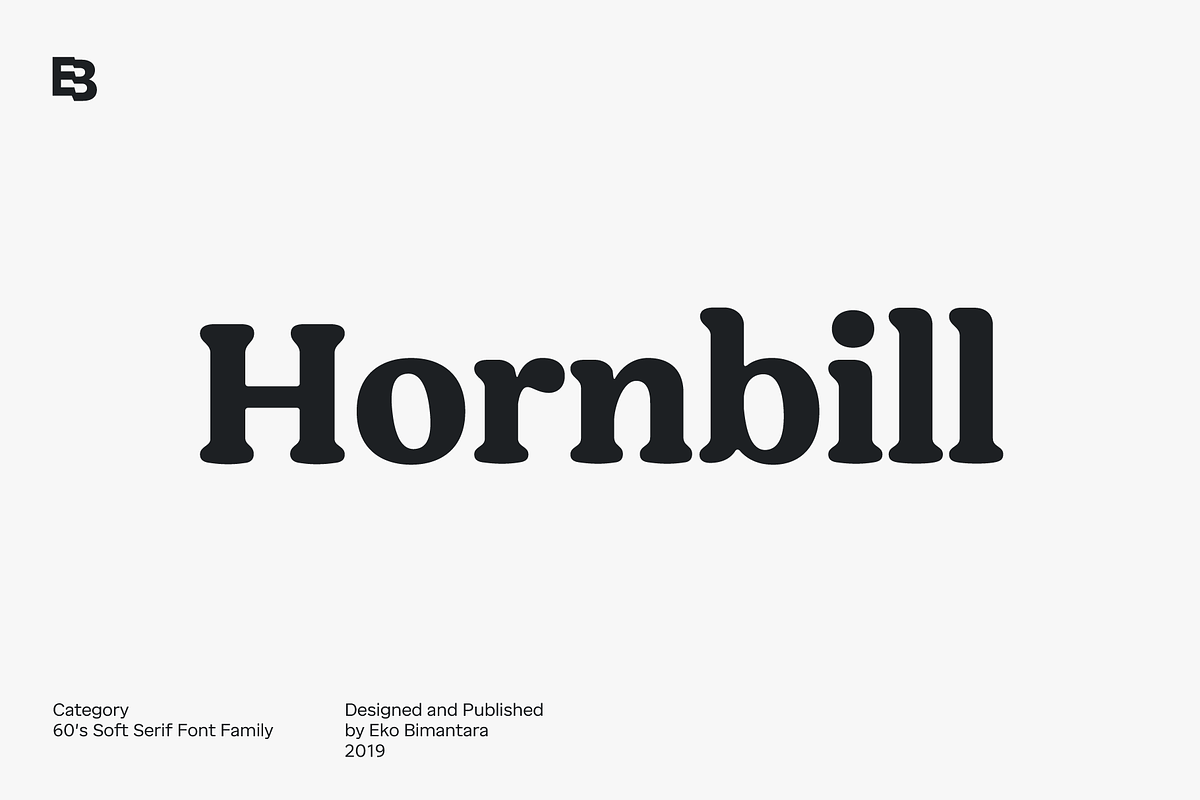
Hornbill – 18 Retro Fonts Free Download is a dynamic font collection inspired by vintage typography from the '60s, '70s, and '80s. With 18 unique styles ranging from bold and groovy to sleek and serifed, this retro font bundle is perfect for posters, branding, album covers, T-shirts, and nostalgic packaging designs.
Hornbill – 18 Retro Fonts Free Download offers a versatile toolkit for designers who love mixing vintage vibes with modern flair. Whether you’re creating a throwback logo, a retro-inspired headline, or a fun social media graphic, Hornbill gives you plenty of stylistic options to bring your vision to life.